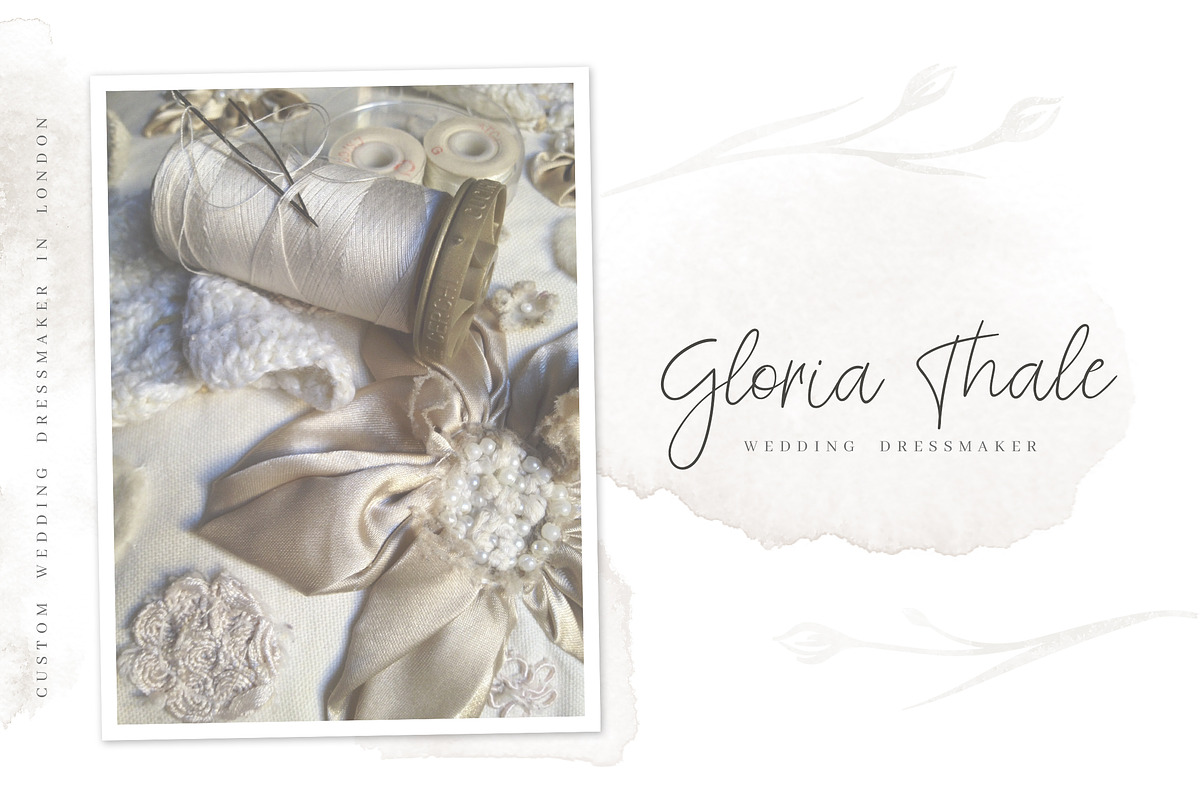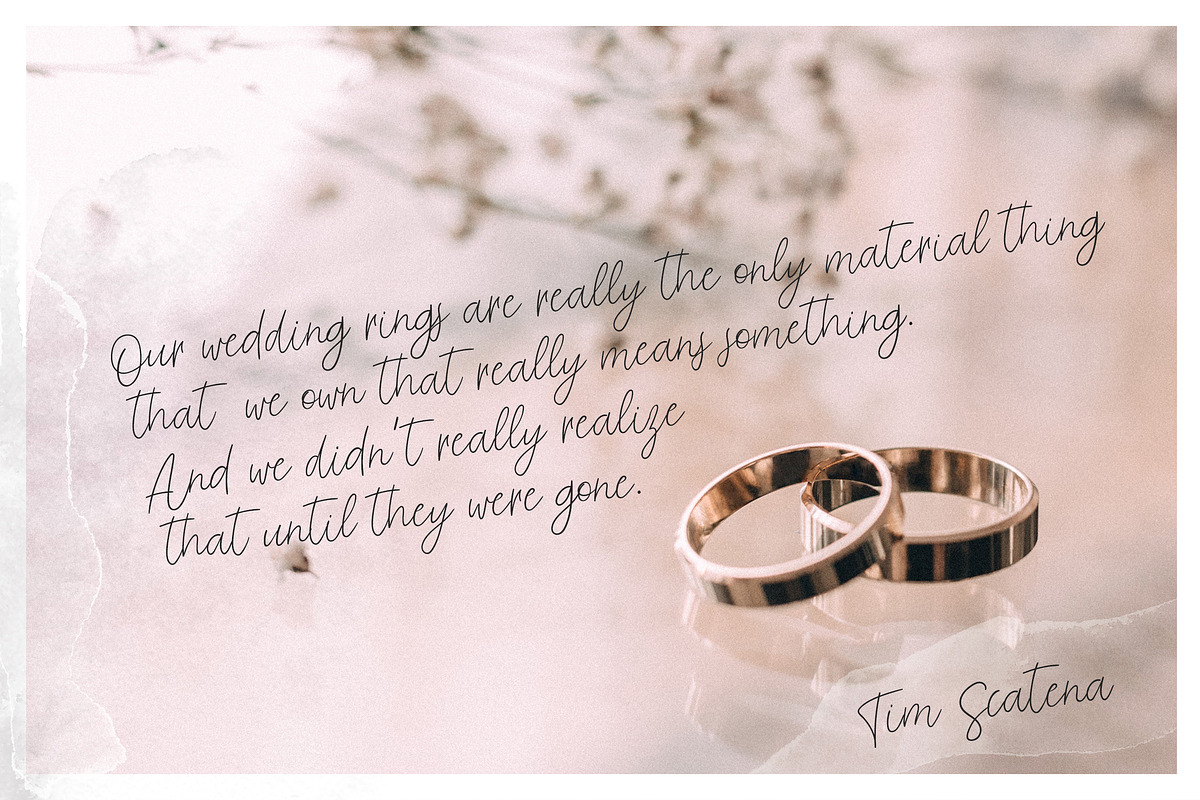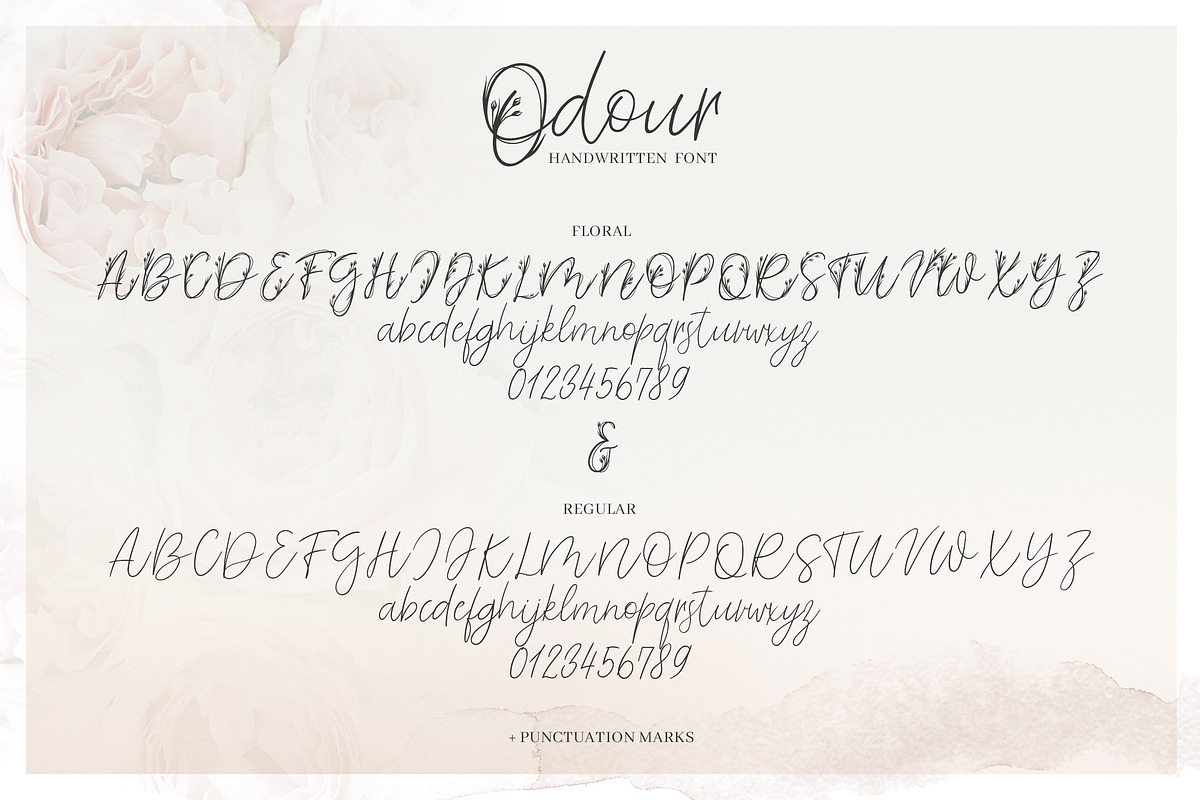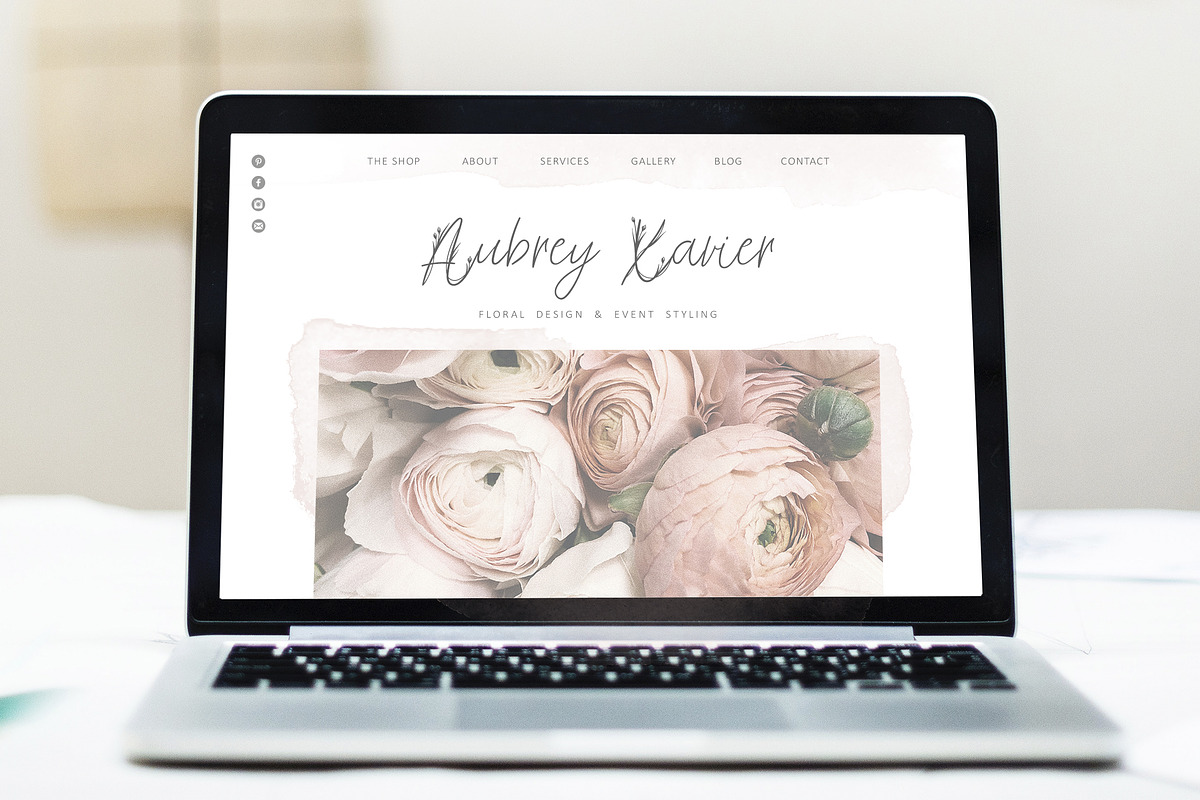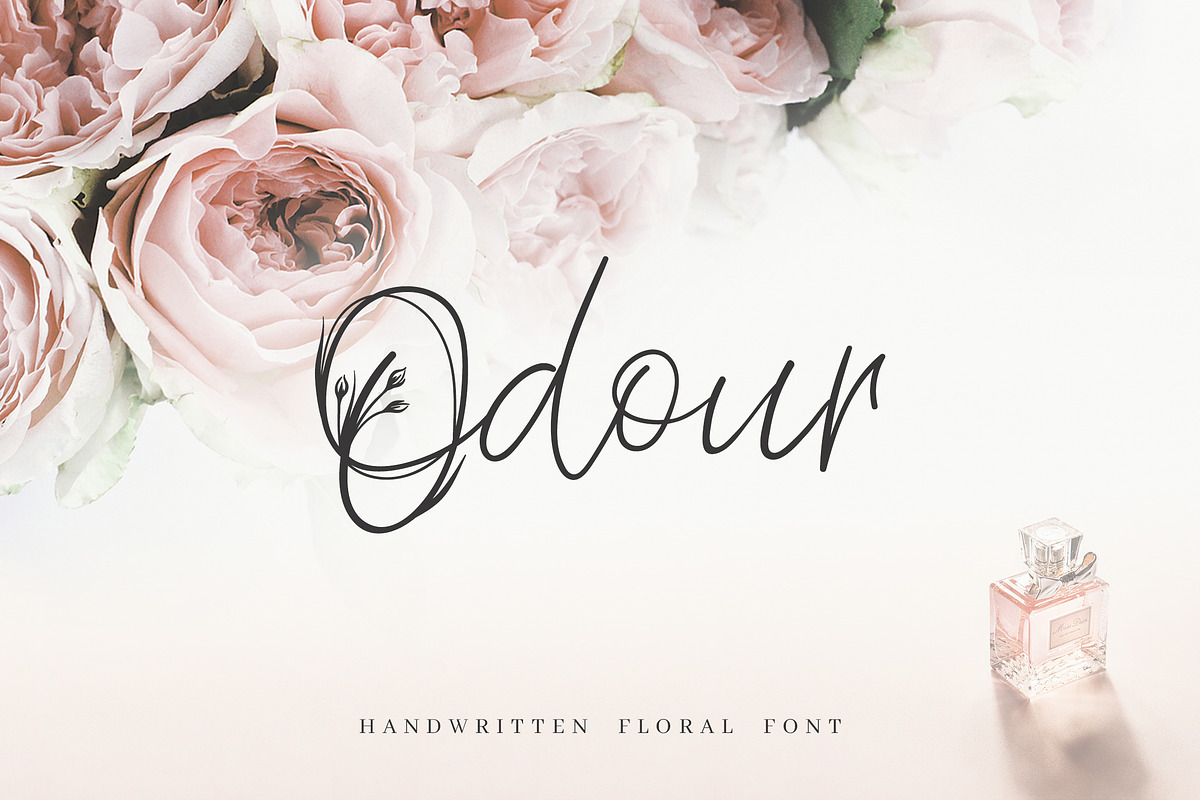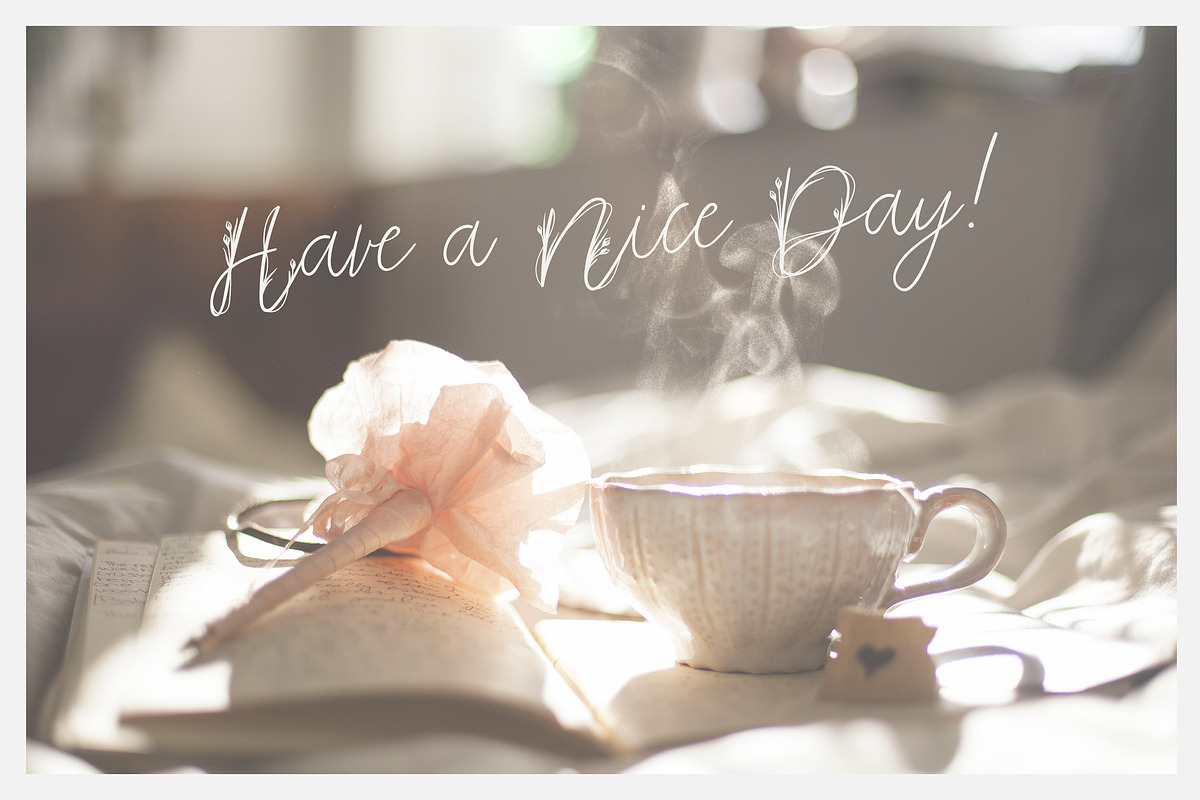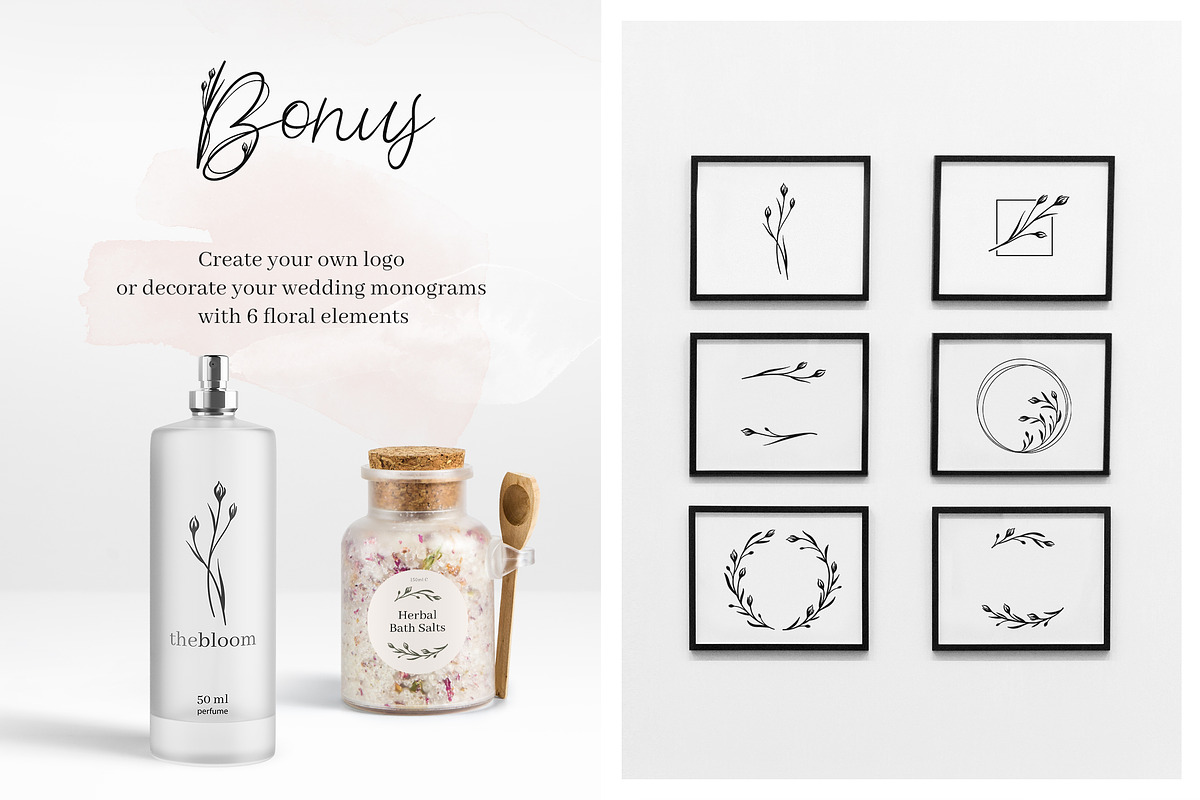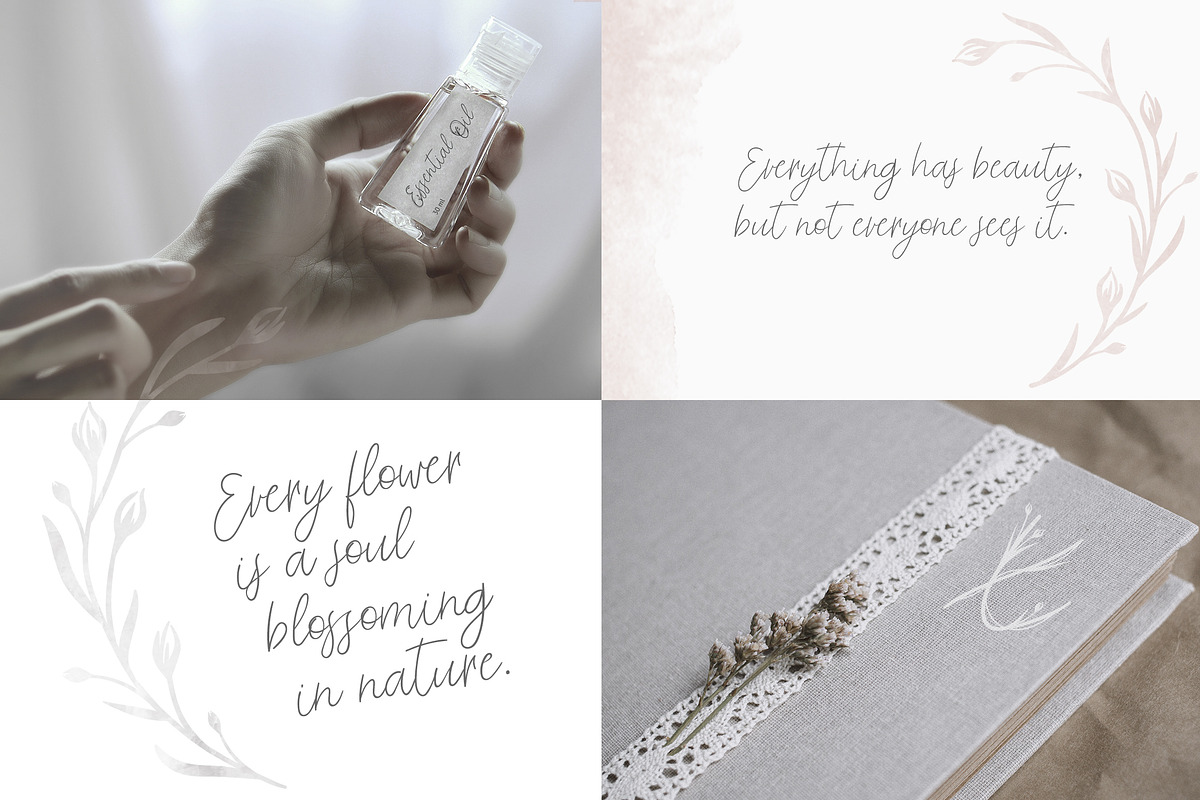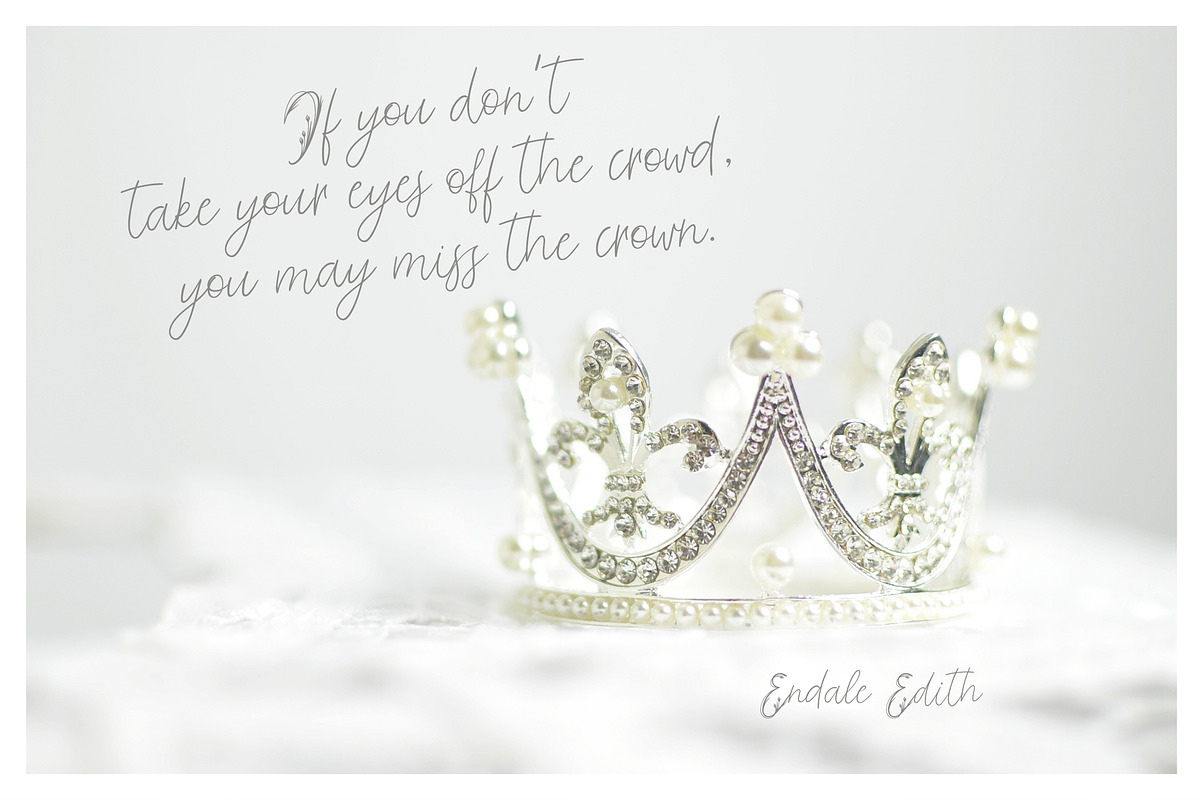
Odour. Spring Botanical Font
I’m pleased to introduce my new handwritten floral font Odour.
Odour comes in two styles: Floral and Regular.
Odour Floral is an elegant, decorative, feminine font. Floral uppercase letters are ideal for your wedding monograms and logos. Use this font for wedding invitations, branding, packaging, magazines, florist shops, social media, restaurant menus, greeting cards, headers and many more.
Odour Regular is a modern calligraphy font. It's perfect for wedding design projects, instagram, invitations, signatures, watermarks, logos, letterpress address, titles, birthday invitations, handwriting and more.